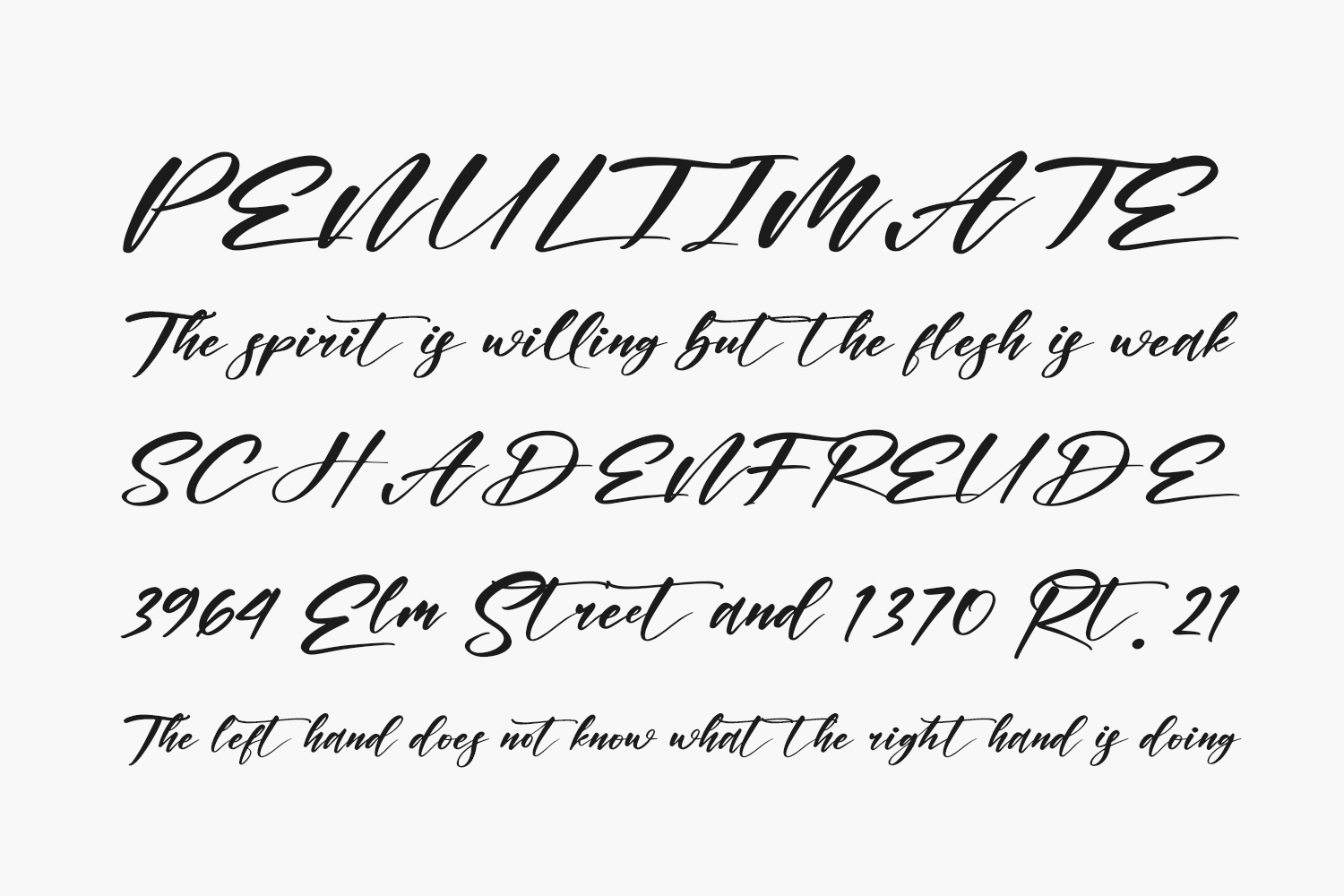
Dita & Rusta Free Font is a captivating handwritten font that brings an air of enchantment to your projects. This versatile script font offers a broad array of applications, from enhancing greeting cards to making headlines stand out. With Dita & Rusta, you’re guaranteed to infuse a romantic touch into your next creative endeavor. Dita & Rusta Free Font is free for personal use only. Please purchase the full version for commercial use.